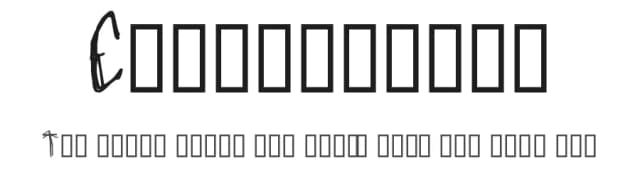
About Go around the books Font
β This is the first time I've created too much alternate characters into one font, so you must have Adobe Illustrator to view/use all of them.
| Designer | Le Thi Thu Huong |
Go around the books Font is a script font that shines as a display or heading face. Pair it with a clean sans-serif or serif font for body text β the contrast creates a clear hierarchy while the two styles stay balanced and easy to read.
Go around the books Font
by Poemhaiku